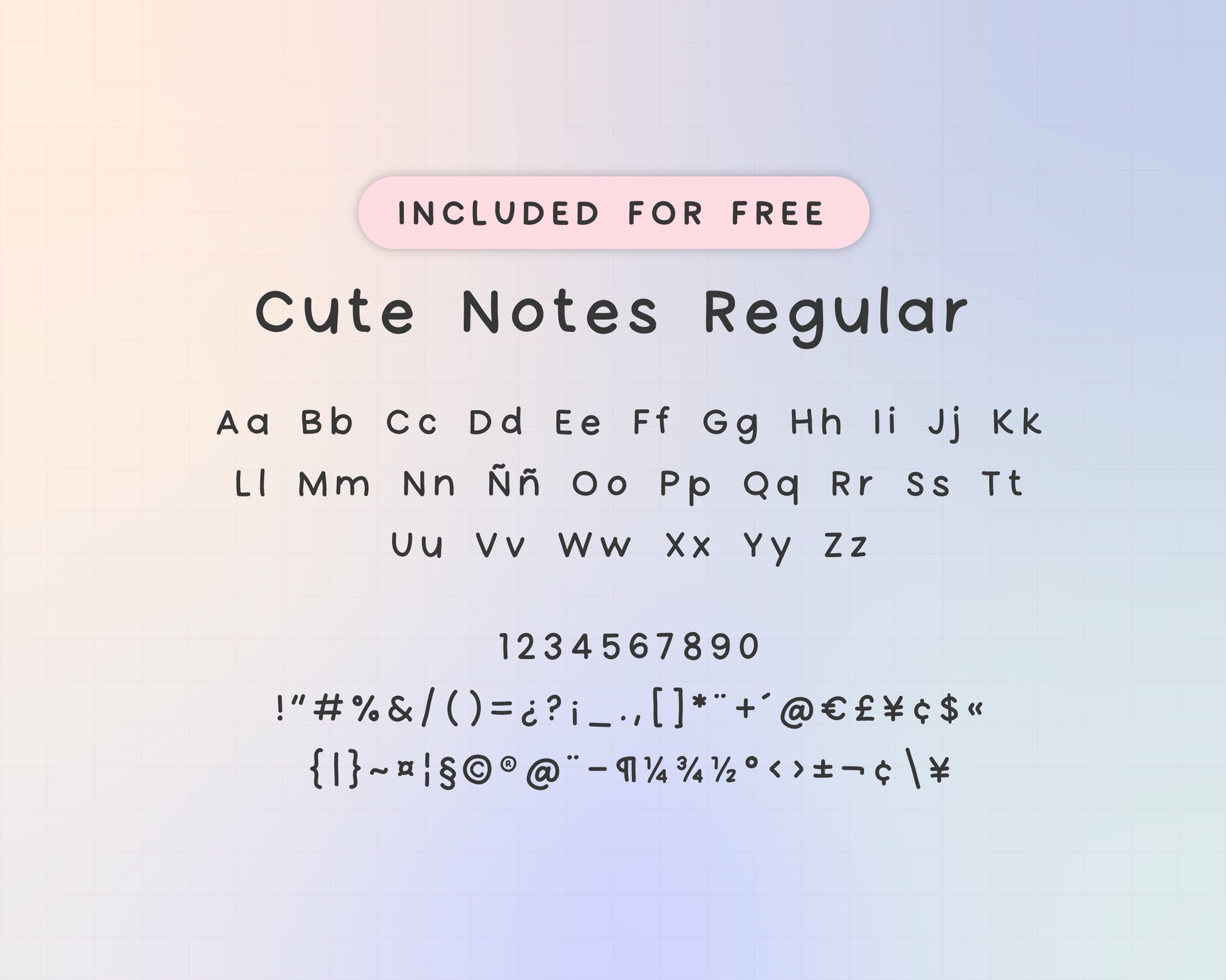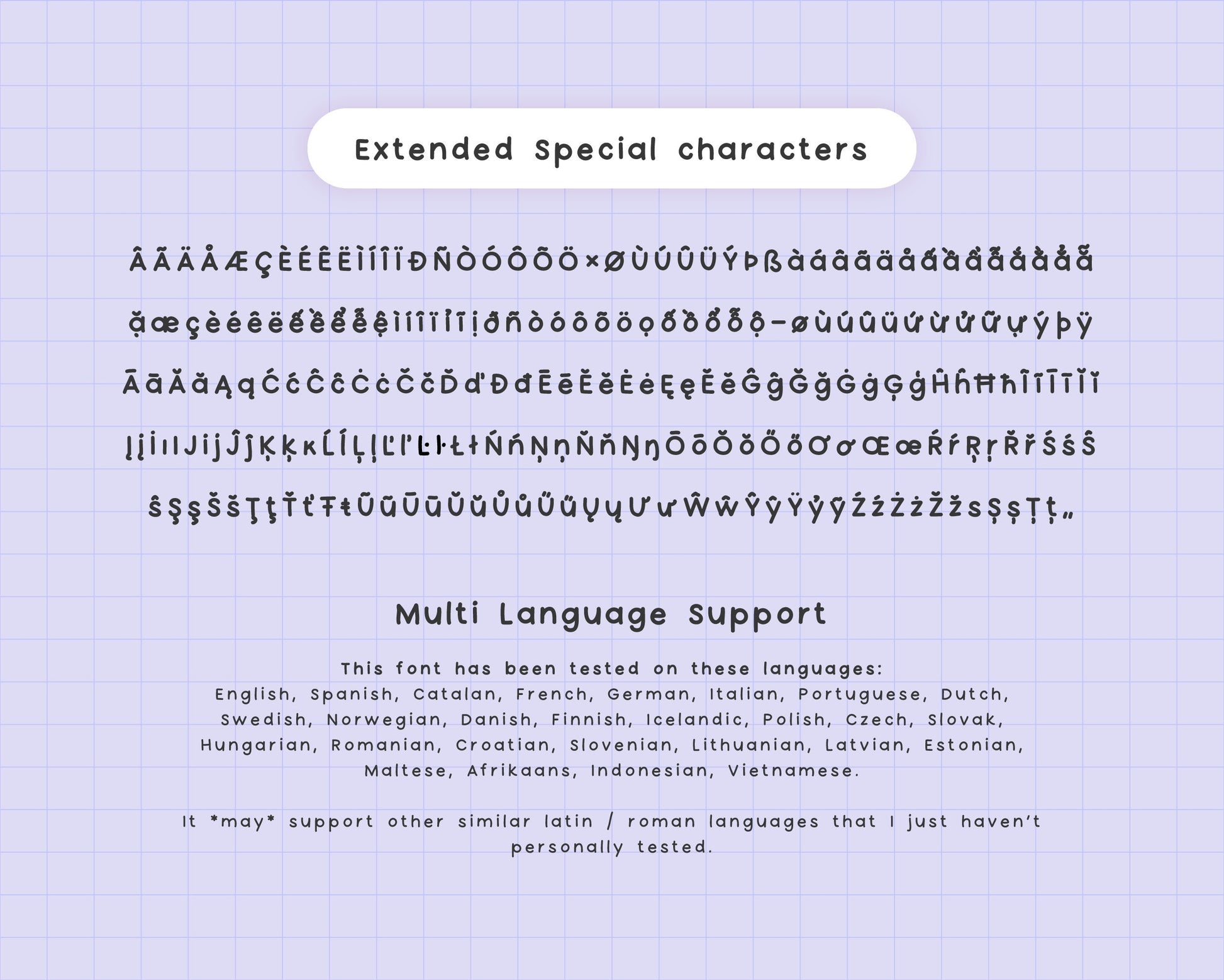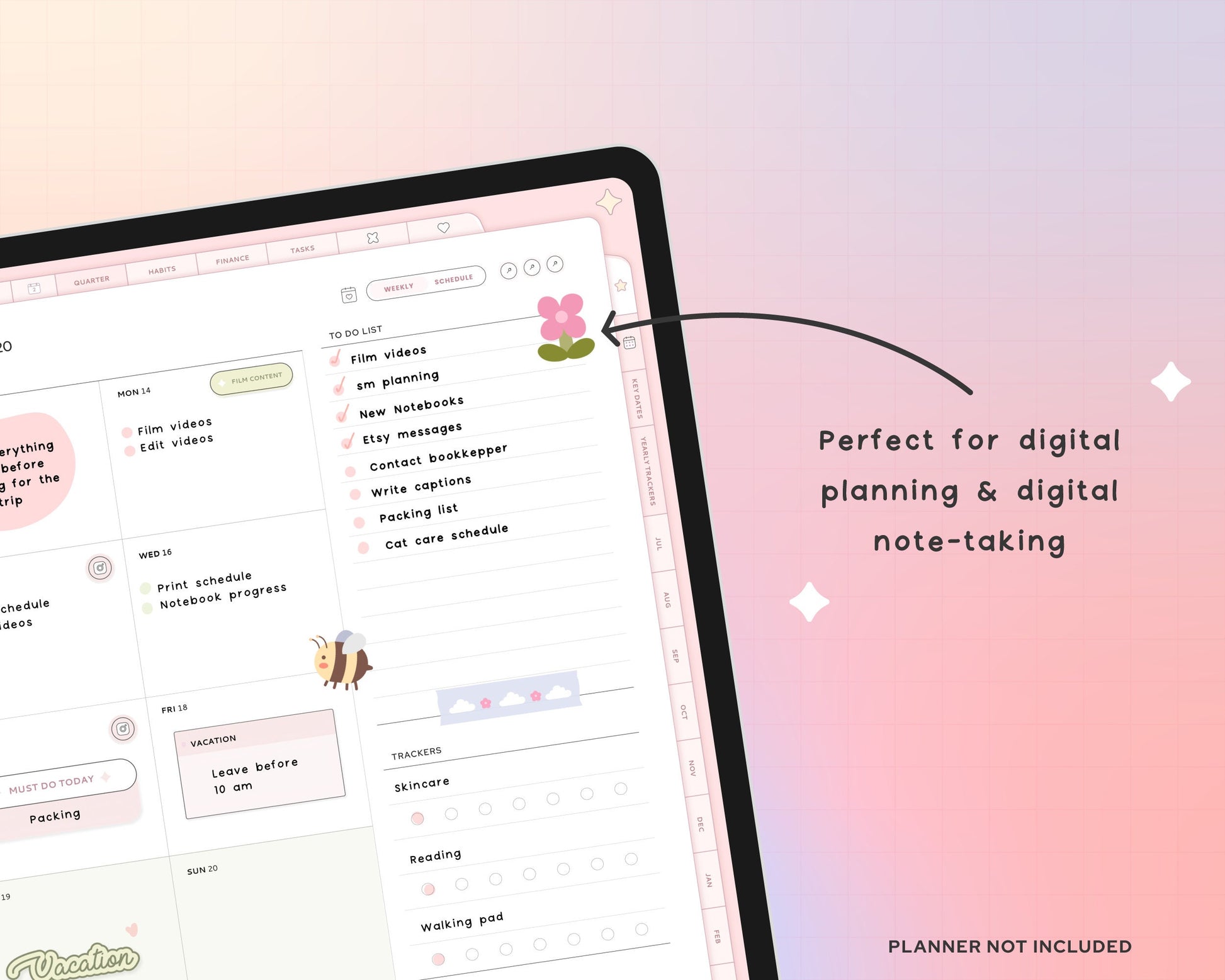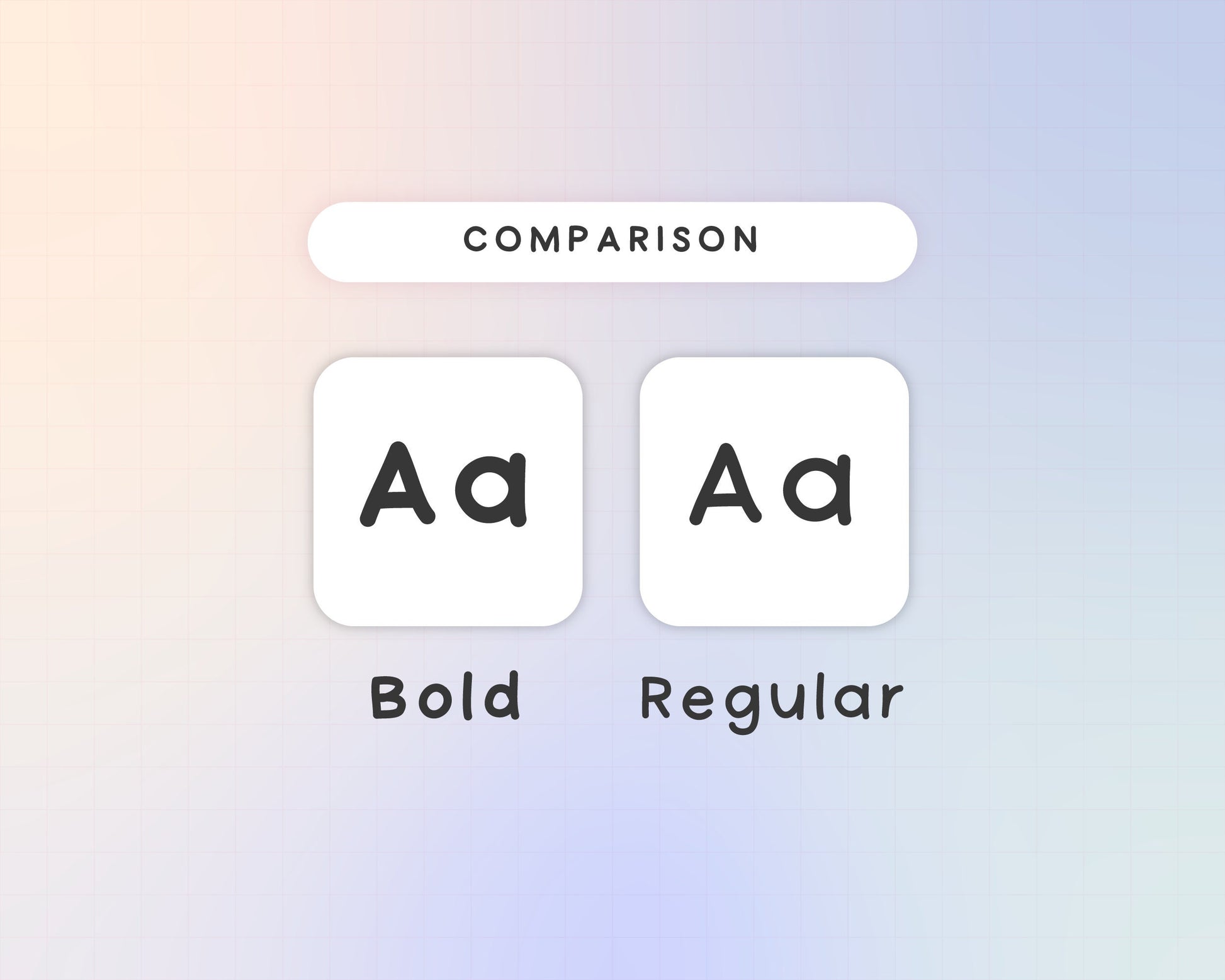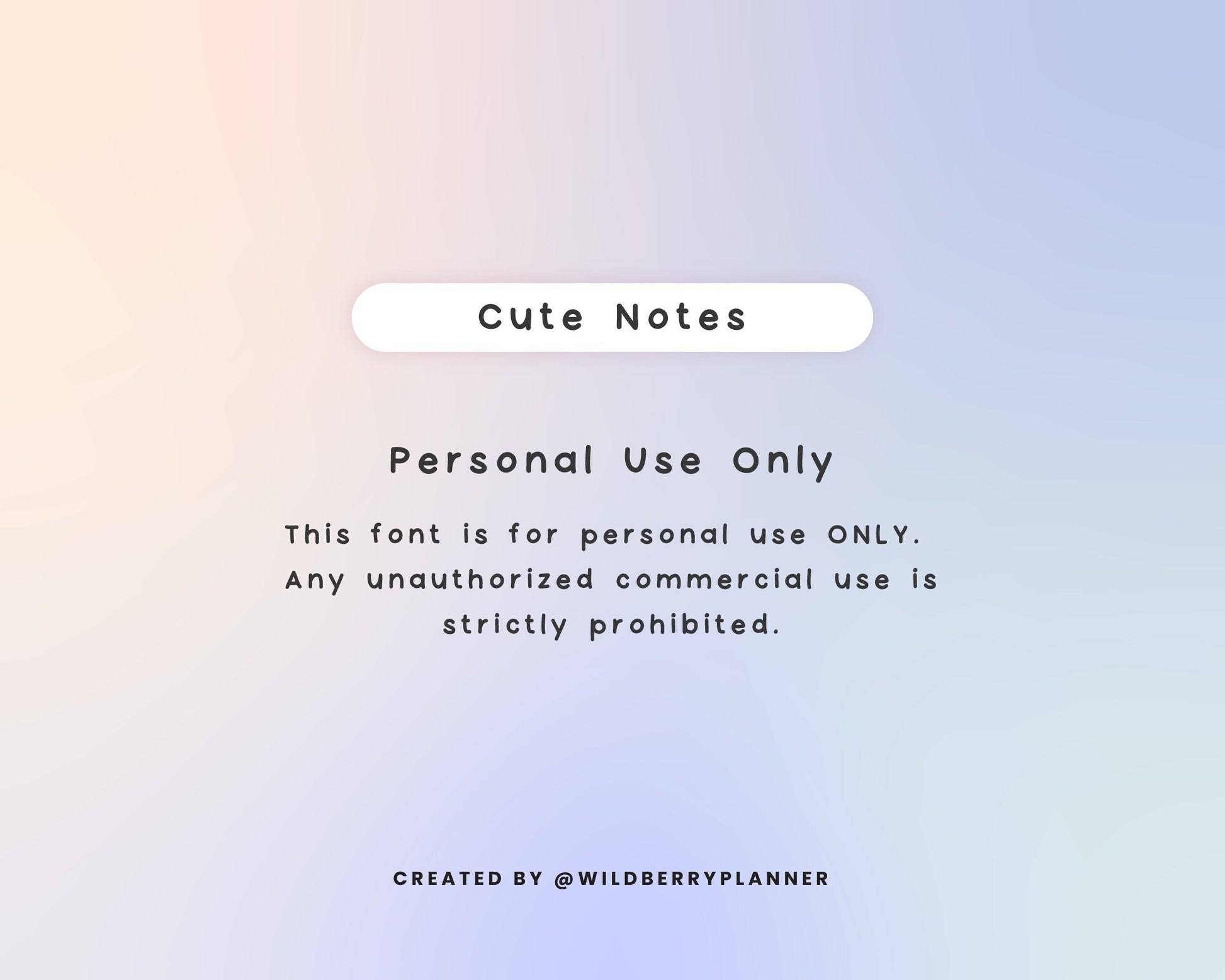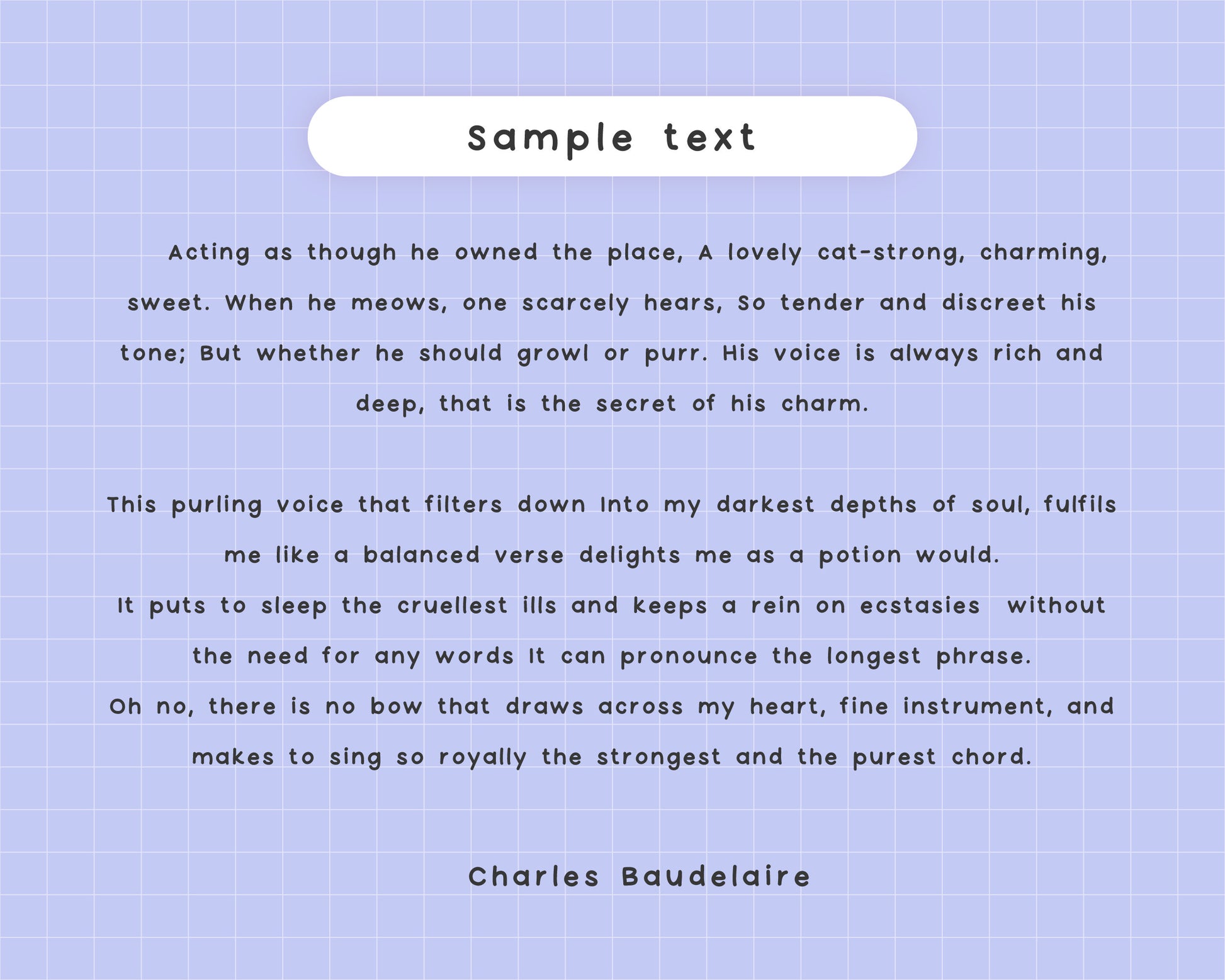
Cute Notes Font
This is a cute handwritten font for digital planning and note-taking, digital study notes, collage notes, and more!
MULTI LANGUAGE
This font has been tested on these languages: English, Spanish, Catalan, French, German, Italian, Portuguese, Dutch, Swedish, Norwegian, Danish, Finnish, Icelandic, Polish, Czech, Slovak, Hungarian, Romanian, Croatian, Slovenian, Lithuanian, Latvian, Estonian, Maltese, Afrikaans, Indonesian, Vietnamese.
It may support other similar Latin/Roman languages that I just havenβt personally tested.